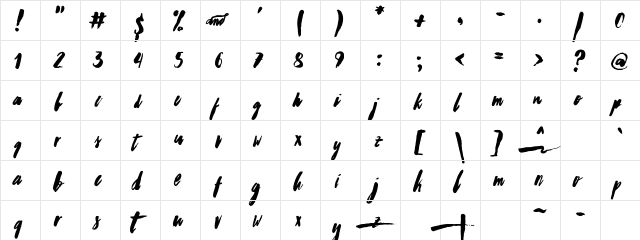
Worthwhile Regular
| Designer | The Branded Quotes |
Design Context for Worthwhile Typeface
Worthwhile is a composed and adaptable typeface that performs quietly and consistently across a wide range of design contexts.